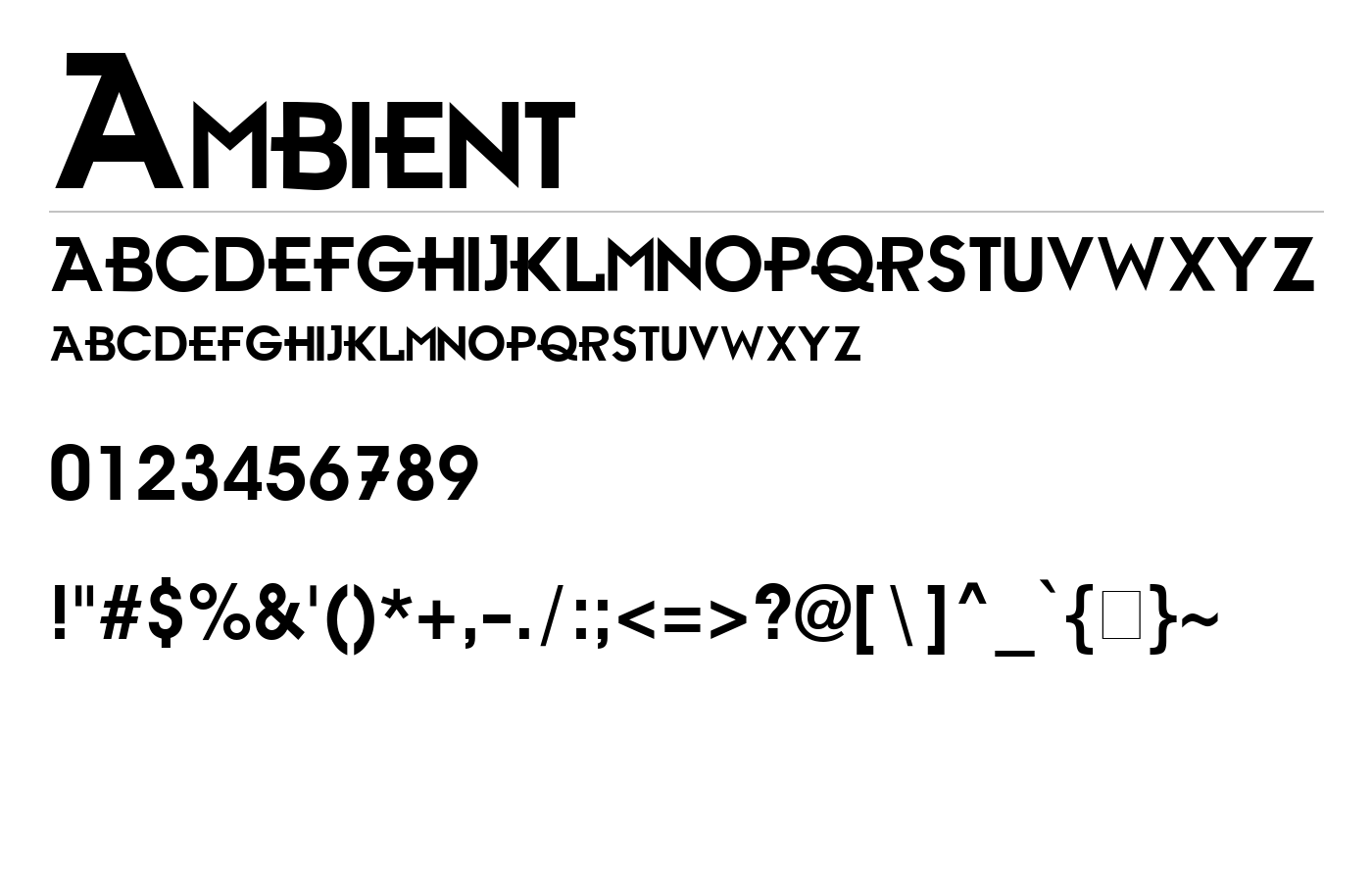
Ambient is a bold, geometric sans serif font with a strong, modern presence and a slightly condensed width. Its sharp angles and clean lines give it a futuristic and technical feel, making it ideal for branding, headlines, and design projects that demand a sleek, contemporary look. This font works well in logos, posters, and editorial layouts where a striking, confident style is needed to capture attention.
Ambient Font
About Ambient Font